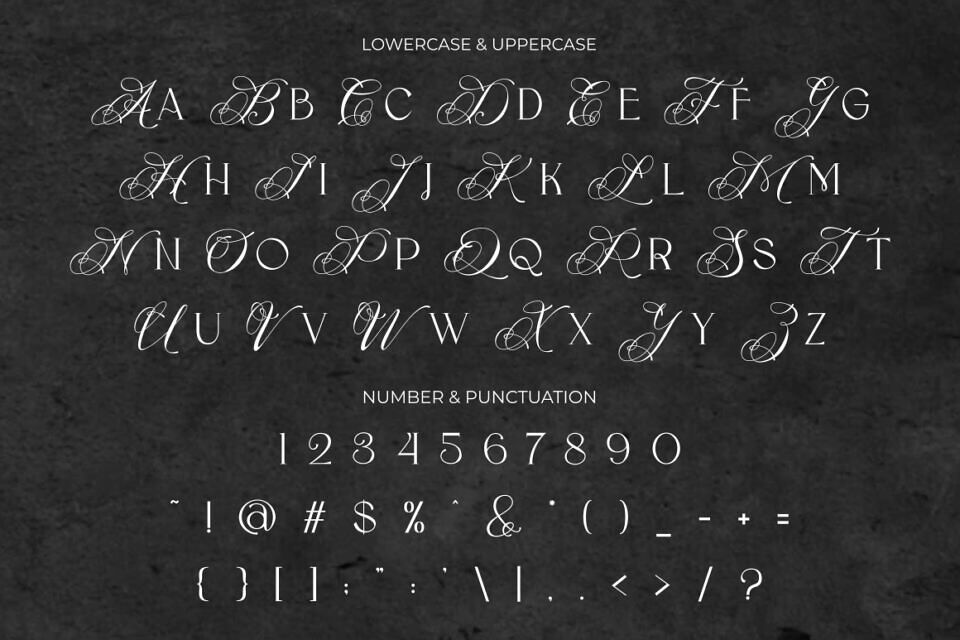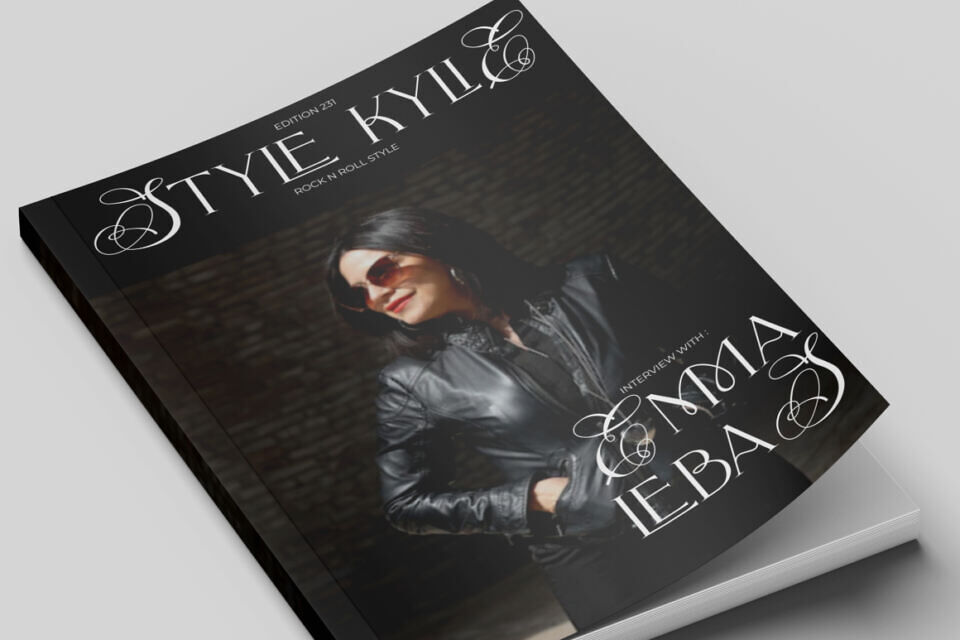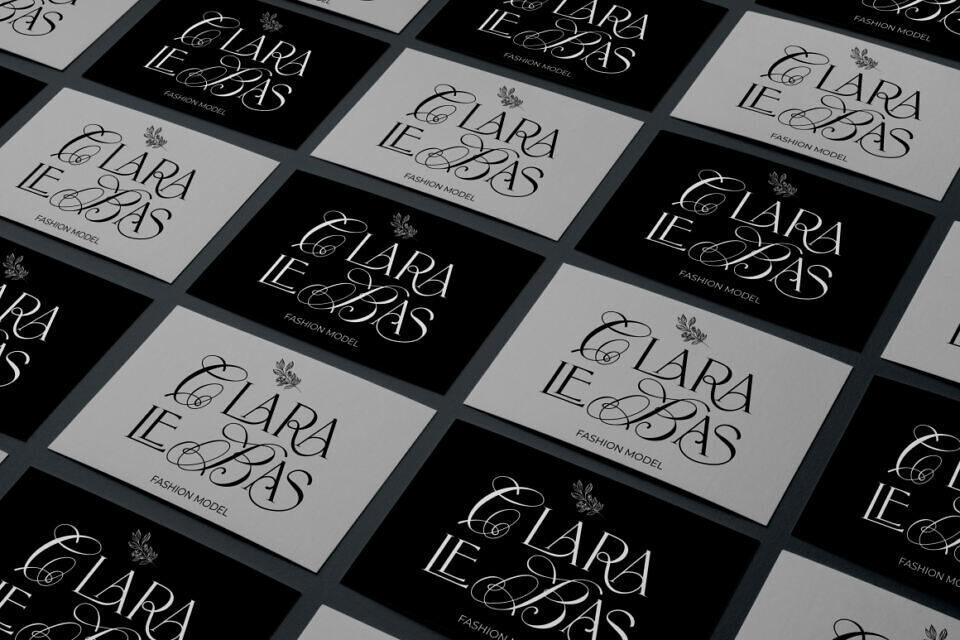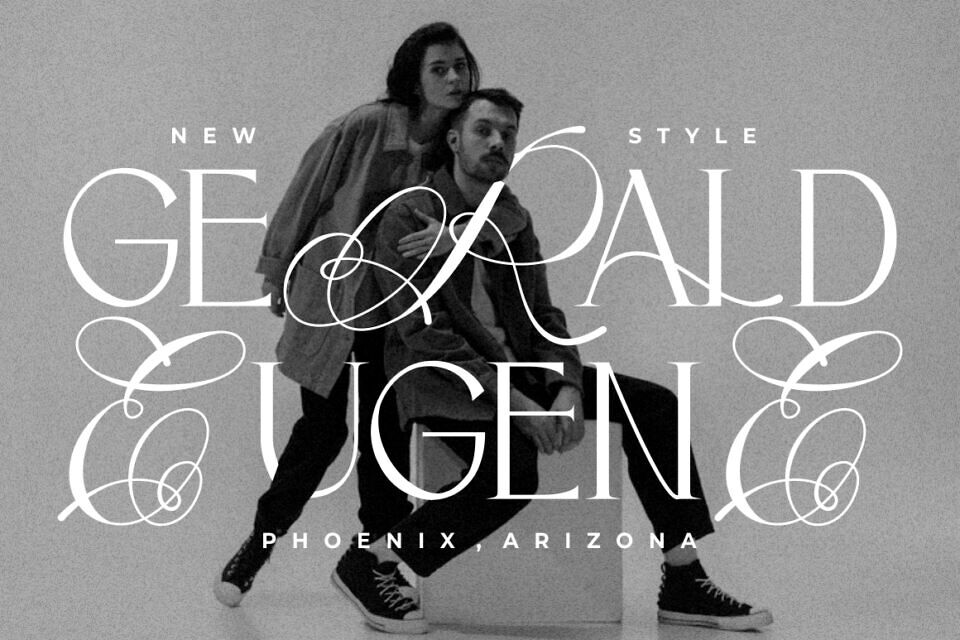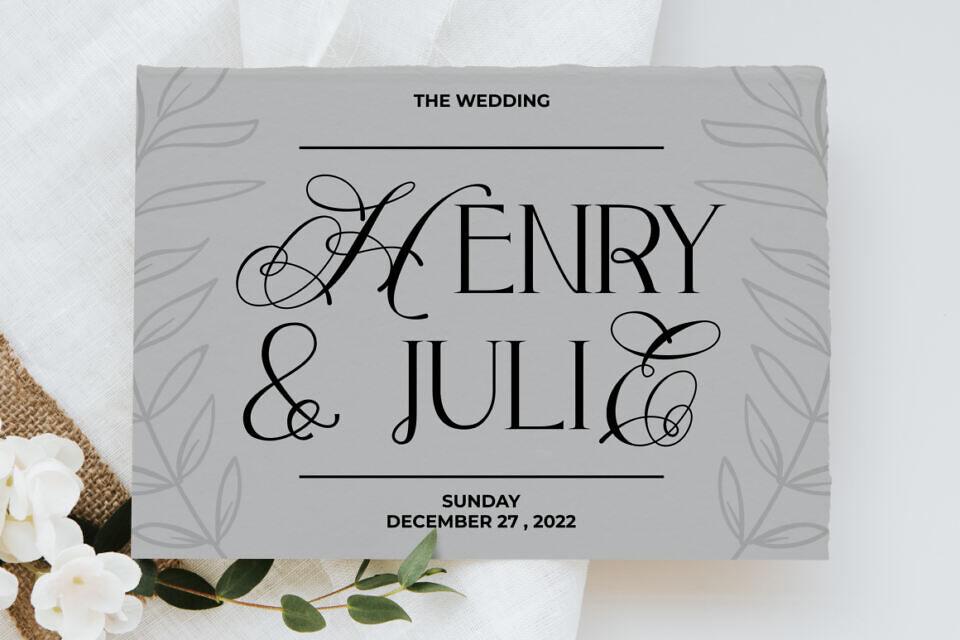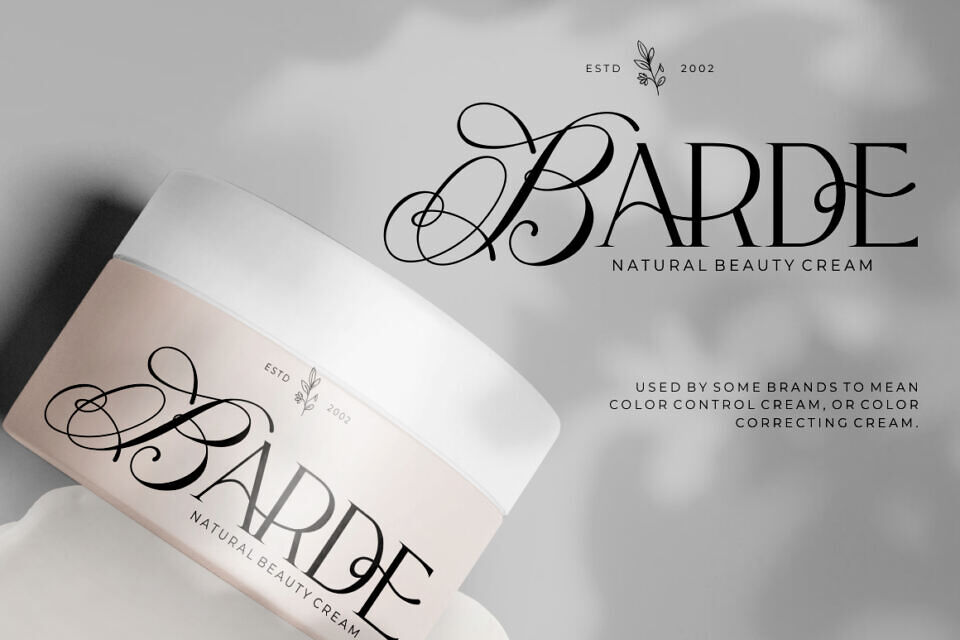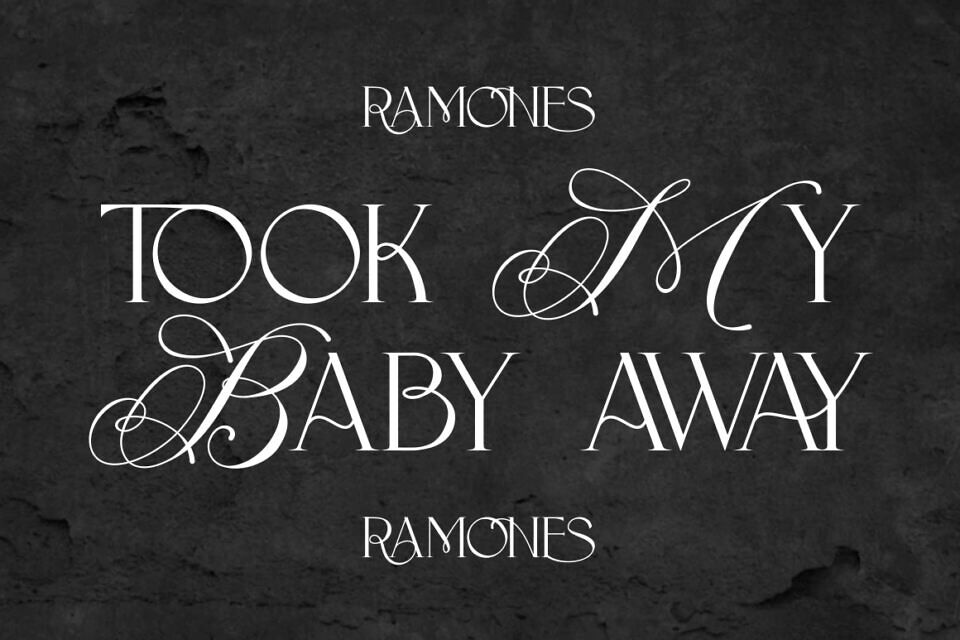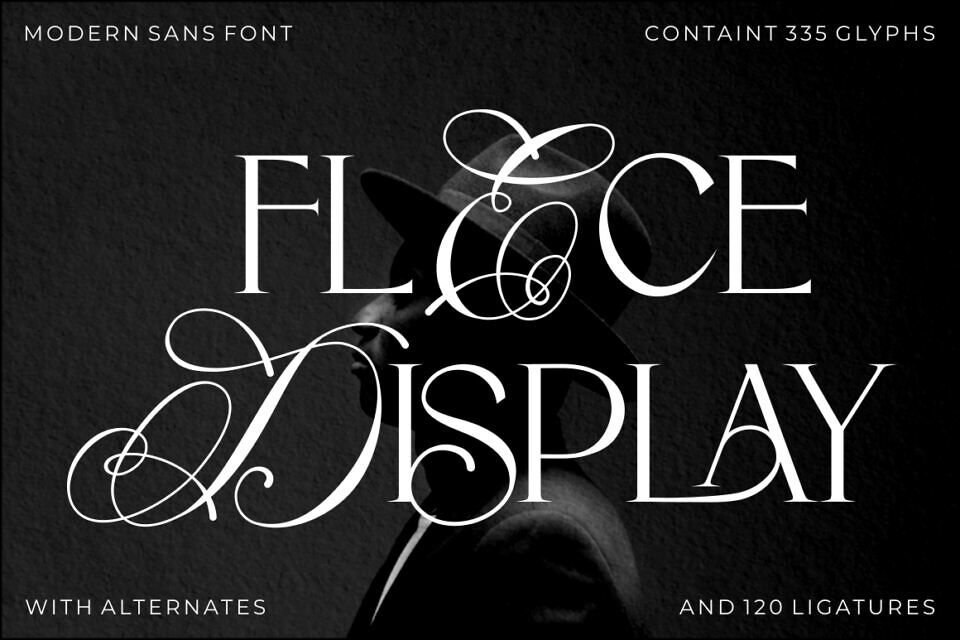
Flece Display Font
Flece Display is a versatile font that offers the perfect blend of modern style and elegance. It features two distinct styles: calligraphy and sans serif, providing a unique combination that is both luxurious and contemporary. This font is well-suited for various design projects, including logos, titles, book covers, headlines, magazines, products, invitations, and weddings, where a touch of sophistication and visual impact is desired.
In addition to its stunning aesthetic, Flece Display also offers a range of features and a comprehensive font package. The font includes both calligraphy and sans serif styles, allowing you to switch seamlessly between the two to achieve the desired look for your design. It provides an extensive collection of characters and glyphs, ensuring versatility and creative possibilities.